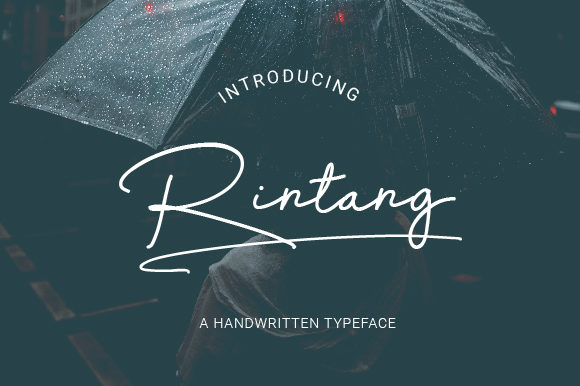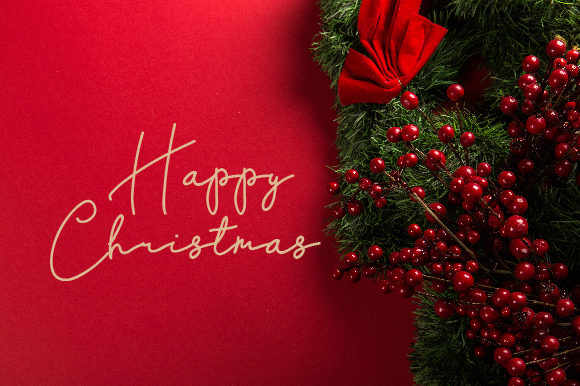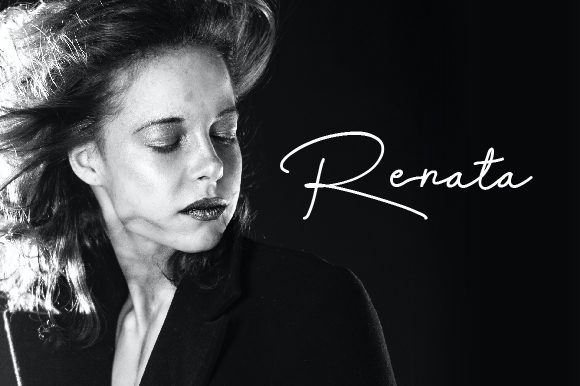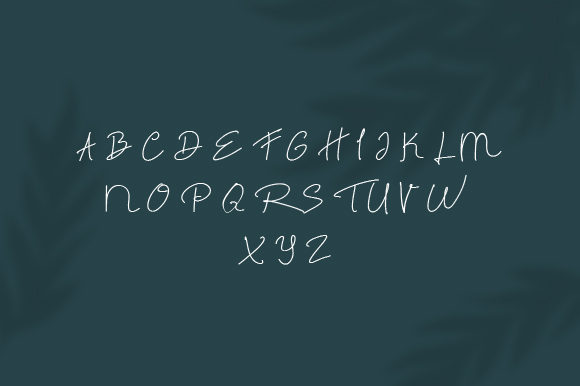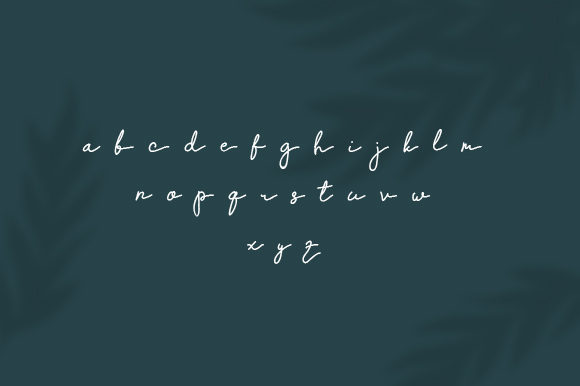
Rintang Font
About Rintang Font
Rintang is a trendy and flowing handwritten font. It is perfectly suited for logos, typography quotes, magazine or book covers, website headers, clothing, branding, packaging designs and so much more.